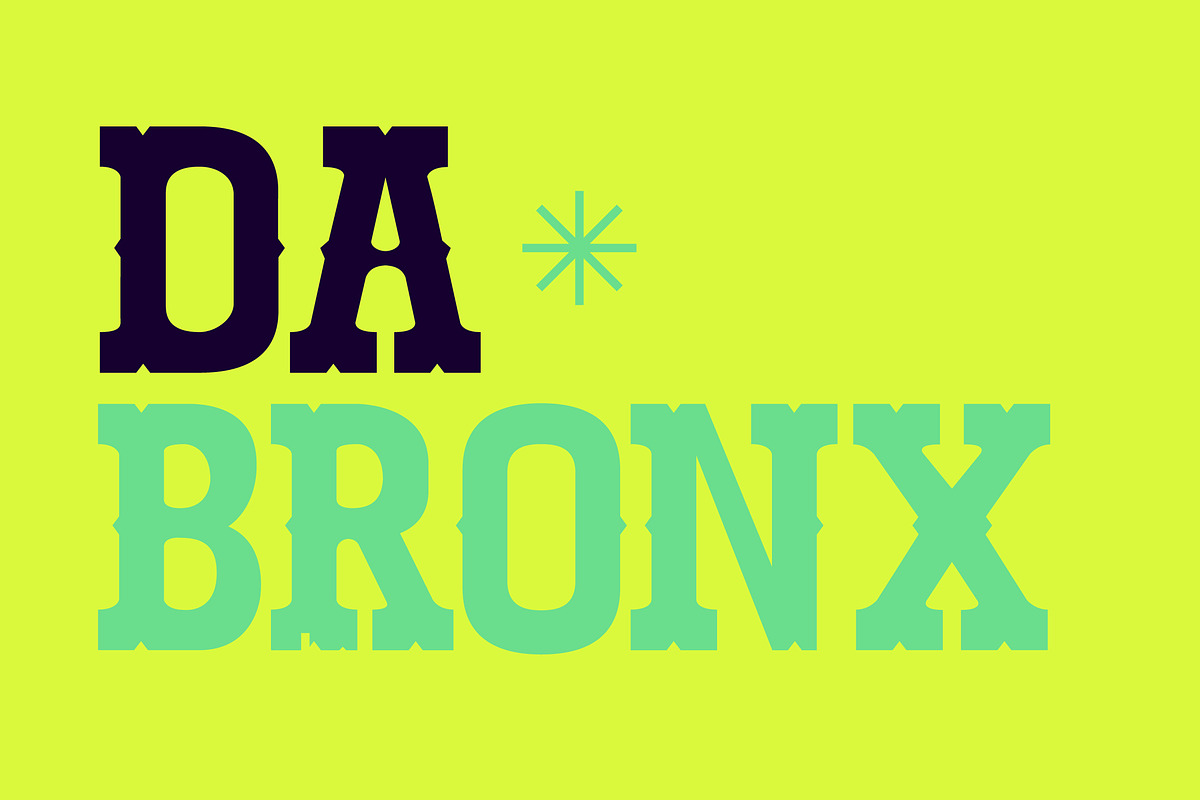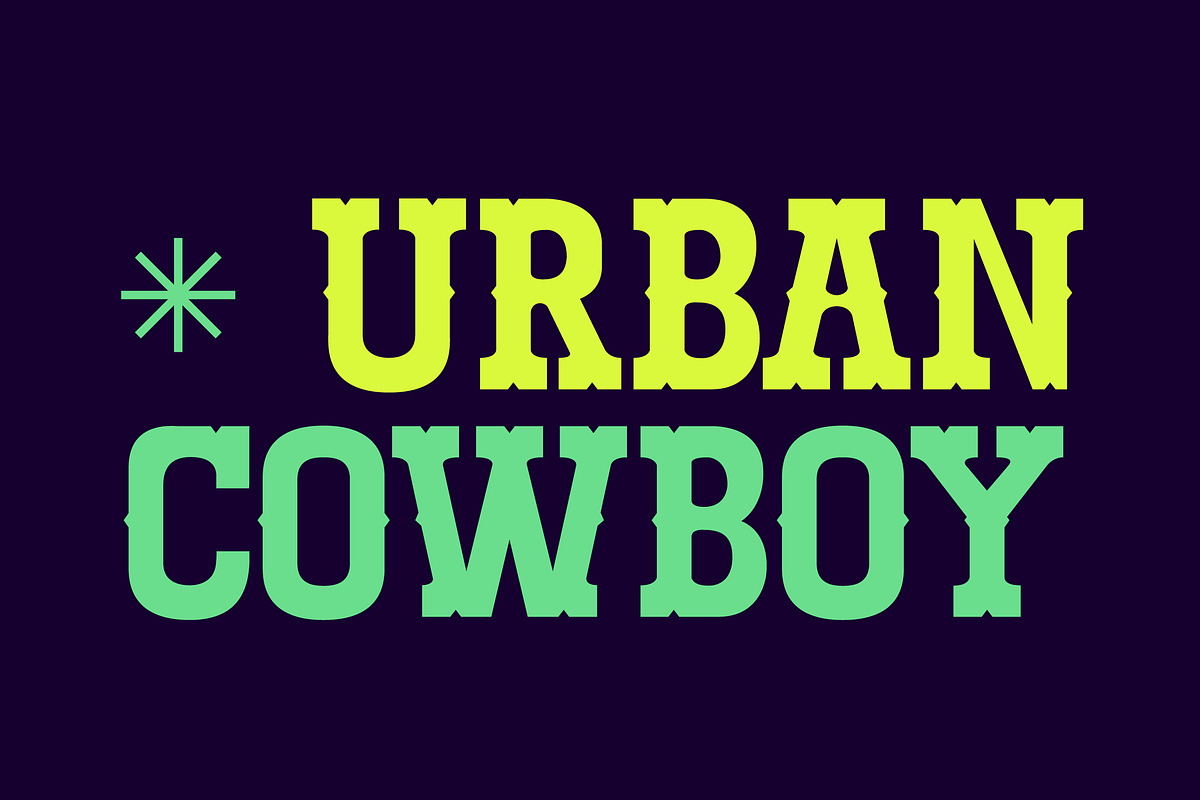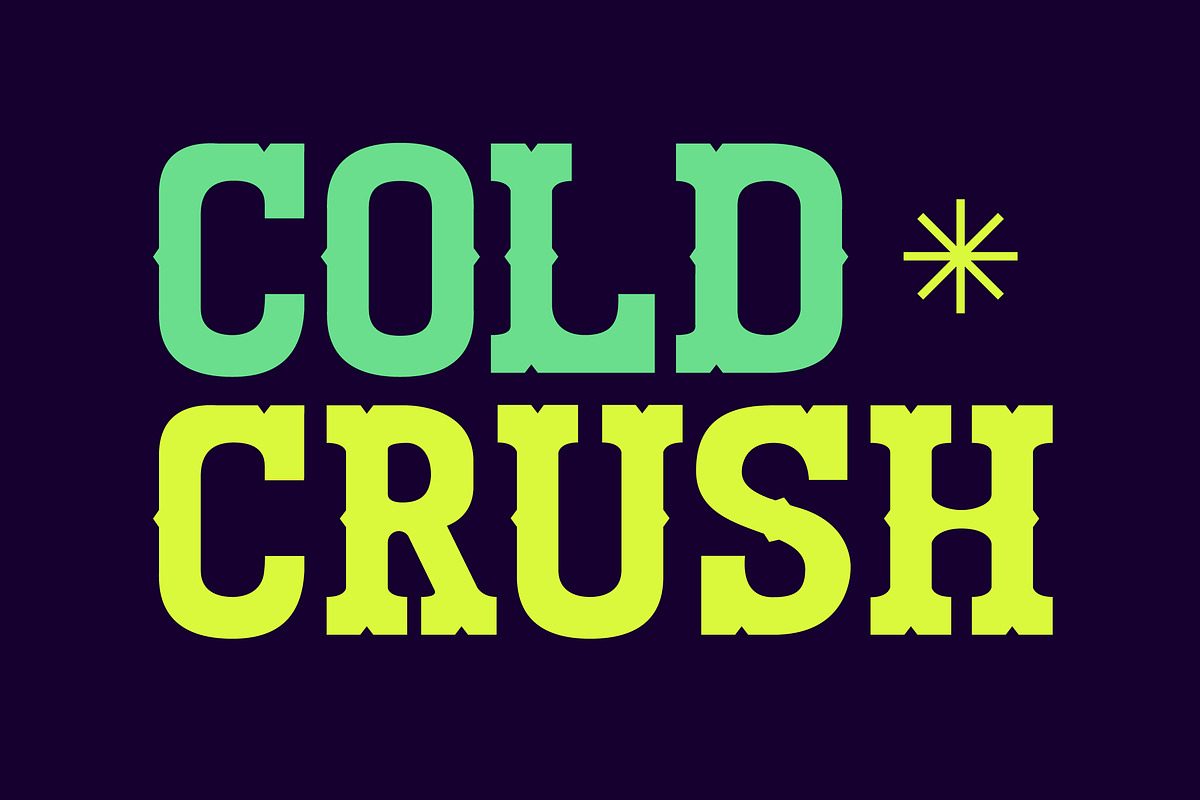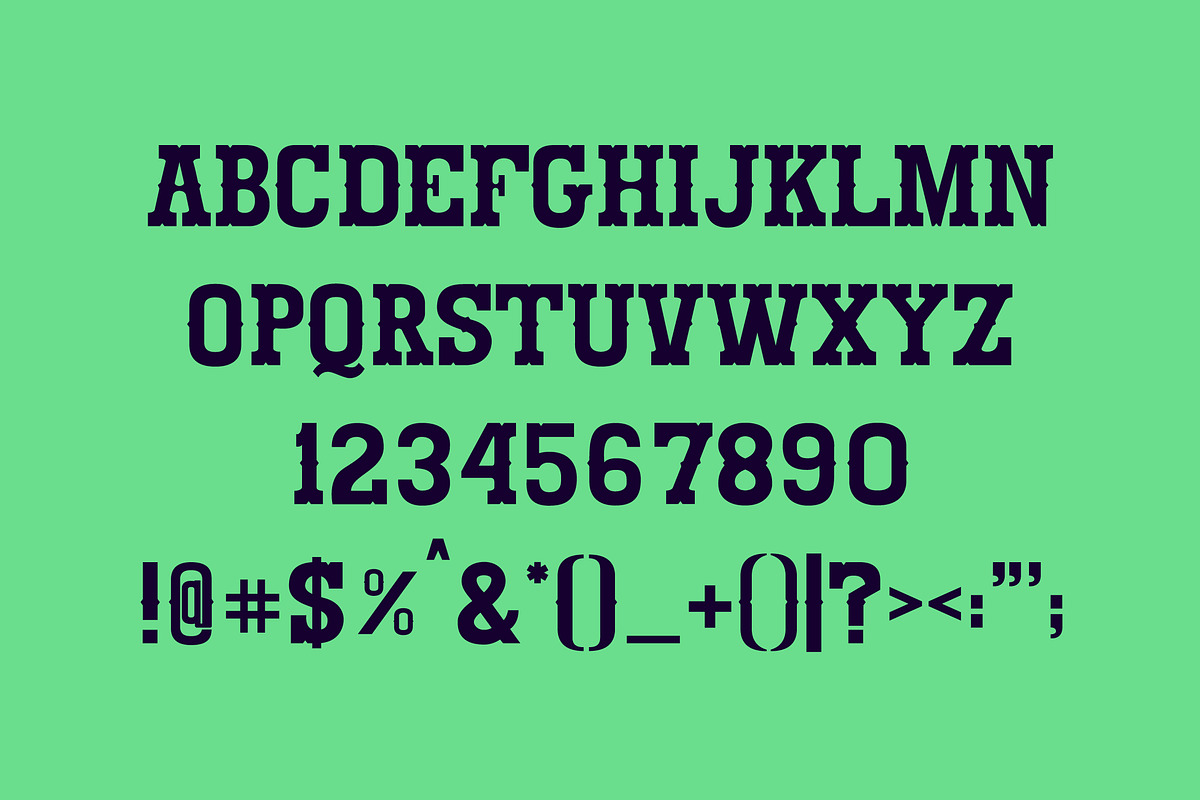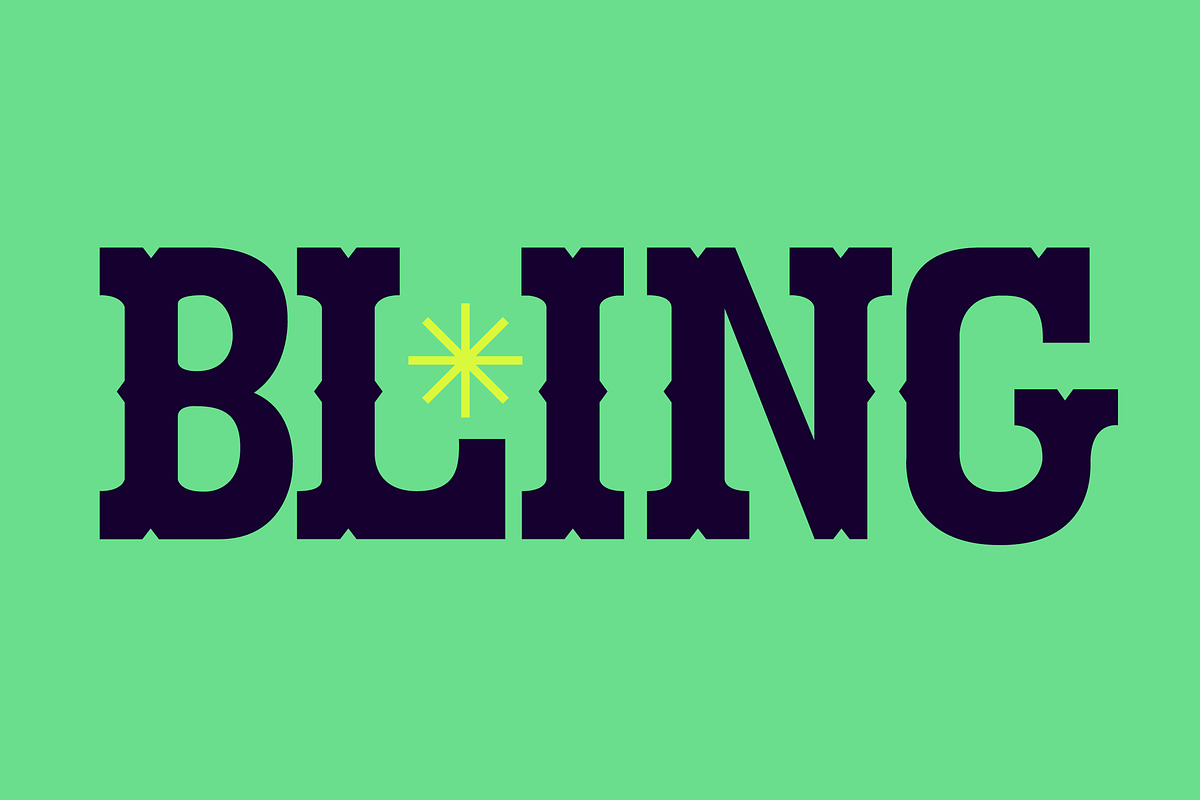
Urban Cowboy Font
Urban Cowboy Font by Miguel Ibarra Design is a font selected for branding, posters, packaging, typography.
- The font contains only all caps with alternate versions between ‘upper’ and ‘lower’ case.
Why Urban Cowboy Font is worth a look
Urban Cowboy Font by Miguel Ibarra Design fits naturally into Branding, posters, packaging, typography.